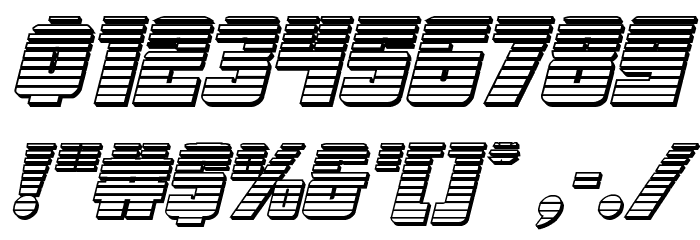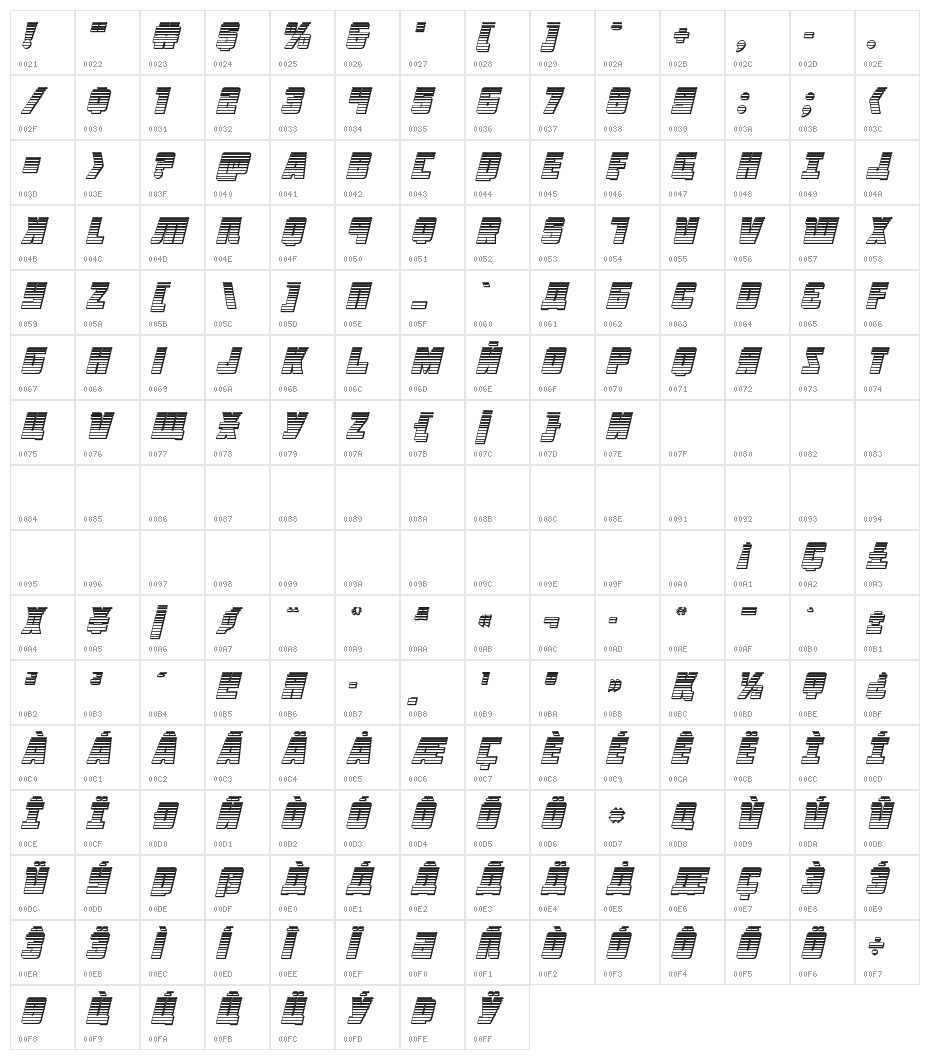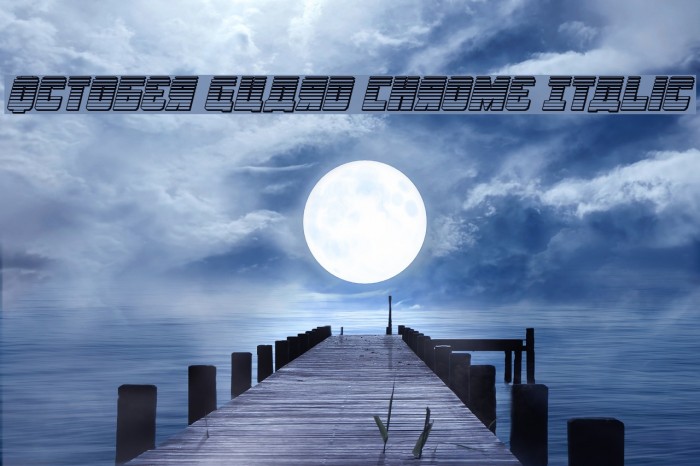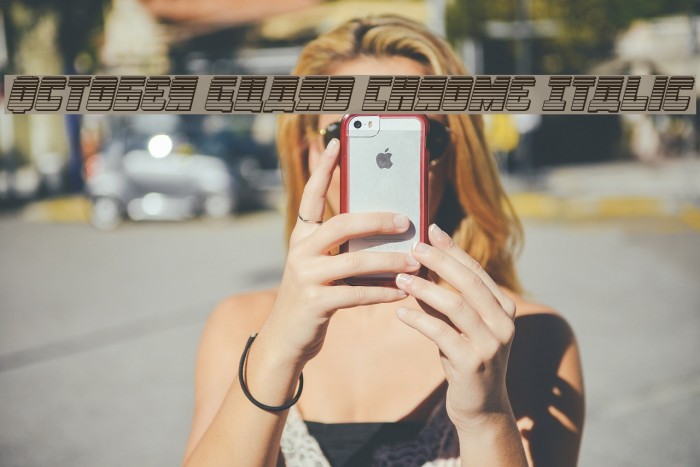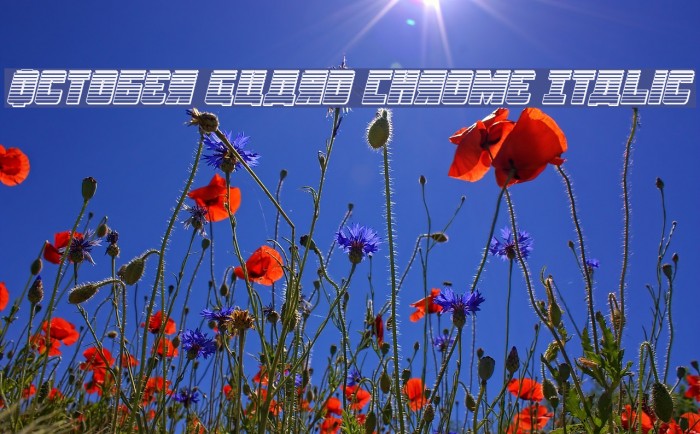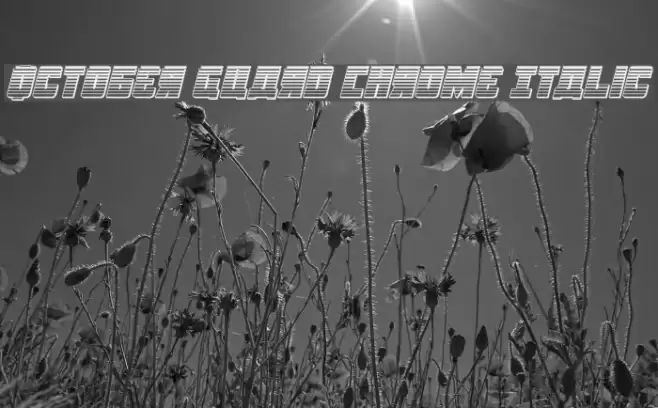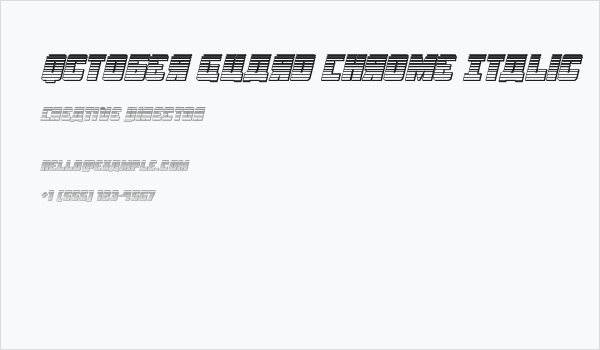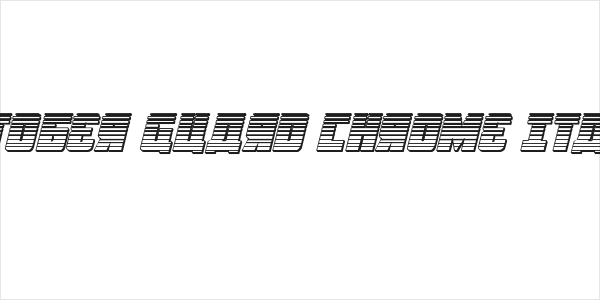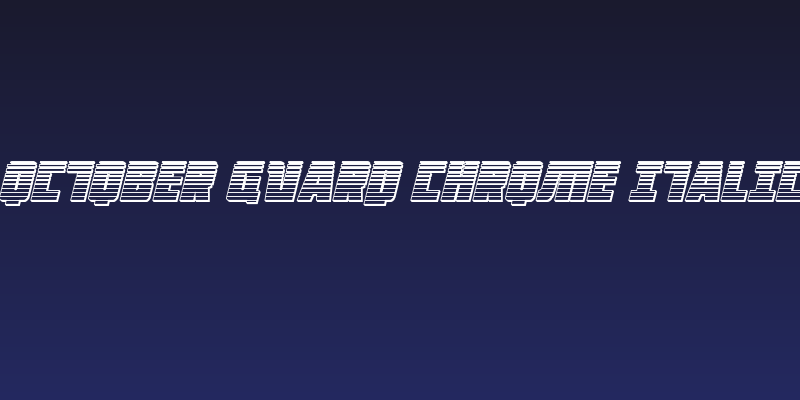
October Guard Chrome Italic Font
October Guard Chrome Italic Description
This font features a bold, three-dimensional appearance with a distinct chrome-like finish. The characters are designed with horizontal lines that create a layered effect, giving them a sense of depth and movement. The italic slant adds a dynamic quality, enhancing its futuristic and industrial aesthetic. The uppercase and lowercase letters maintain a consistent style, with sharp edges and a uniform width. Numbers and special characters are equally bold and follow the same design principles, ensuring a cohesive look across all elements.
| Proposed Projects | Ideal for projects requiring a modern, industrial look, such as tech branding, video game titles, or sci-fi themed posters. |